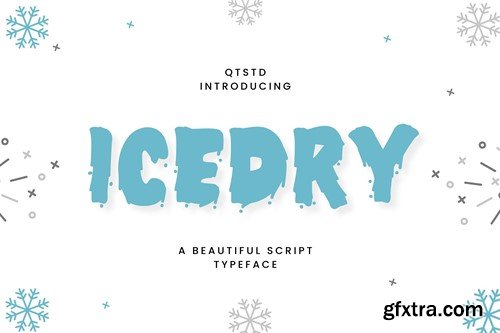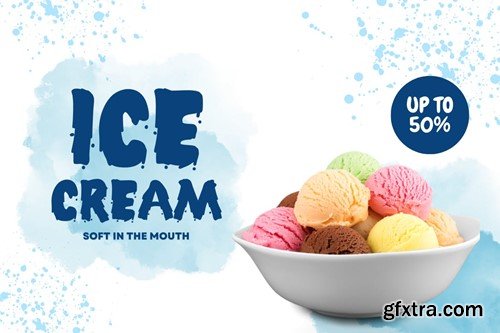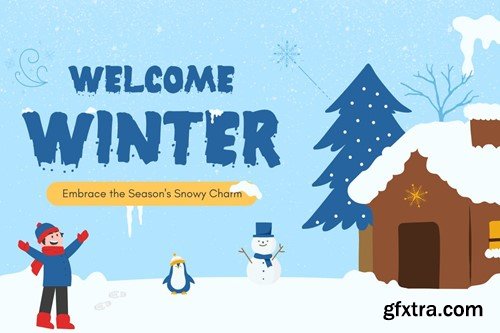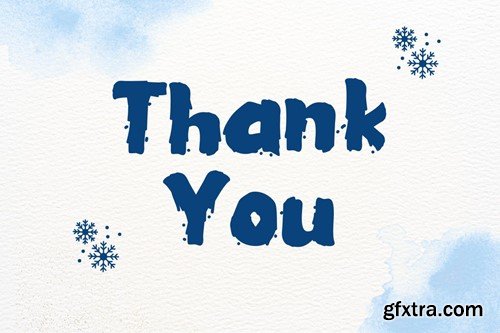
冰干 - 一款冬日 playful 显示字体 3H7NE2M
Icedry - A Winter Playful Display Font Step into a winter wonderland of creativity with Icedry, a playful display font that captures the essence of the frosty season. This font is your go-to companion for adding a touch of winter magic to your designs, whether you're working on holiday cards, seasonal banners, or chilly social media posts. The whimsical strokes and frost-inspired details of Icedry make it the perfect choice for those who want to infuse their projects with the cool and festive vibes of winter. Icedry doesn't just bring letters to life; it tells a snowy story. The font's playful demeanor is complemented by its versatility, making it suitable for various design projects. From snowflake-laden headlines to winter-themed product packaging, Icedry will transform your text into a visual celebration of the season. Embrace the chill, let your creativity sparkle, and make every project frost-tastic with Icedry - the winter font that brings a touch of magic to your words. What’s Included : Thank you